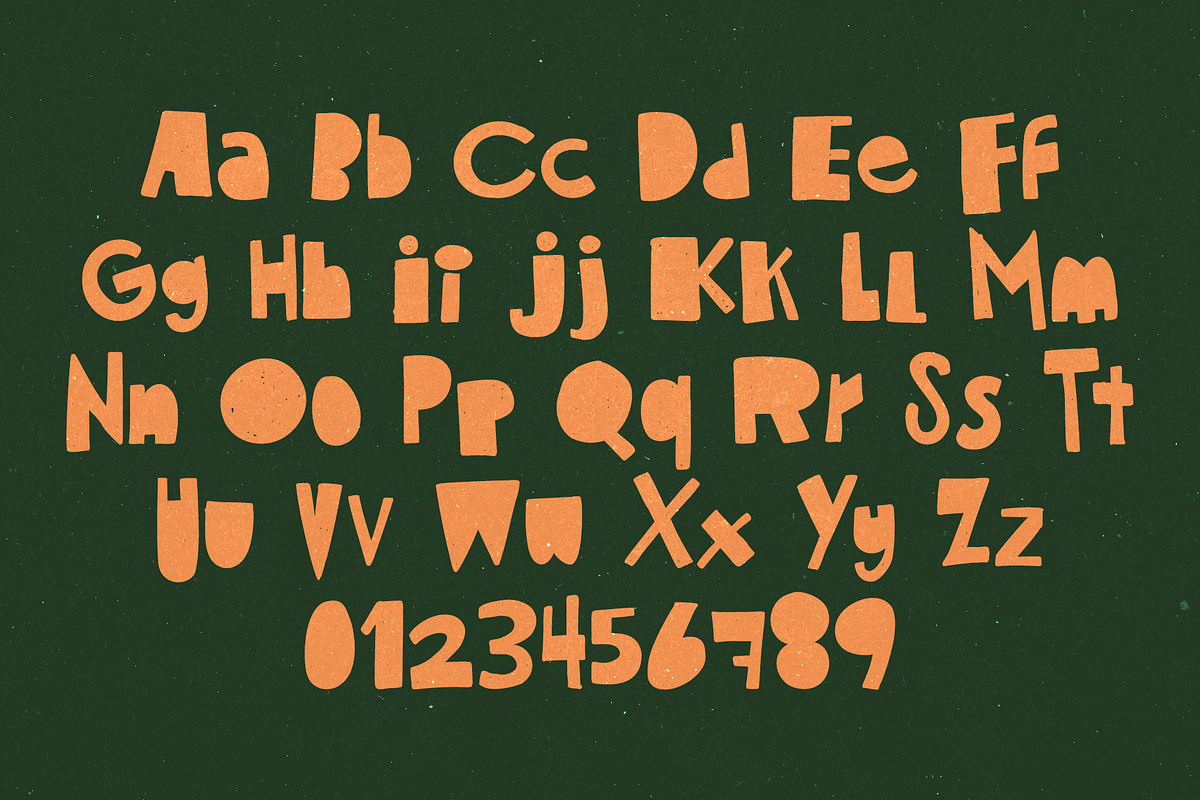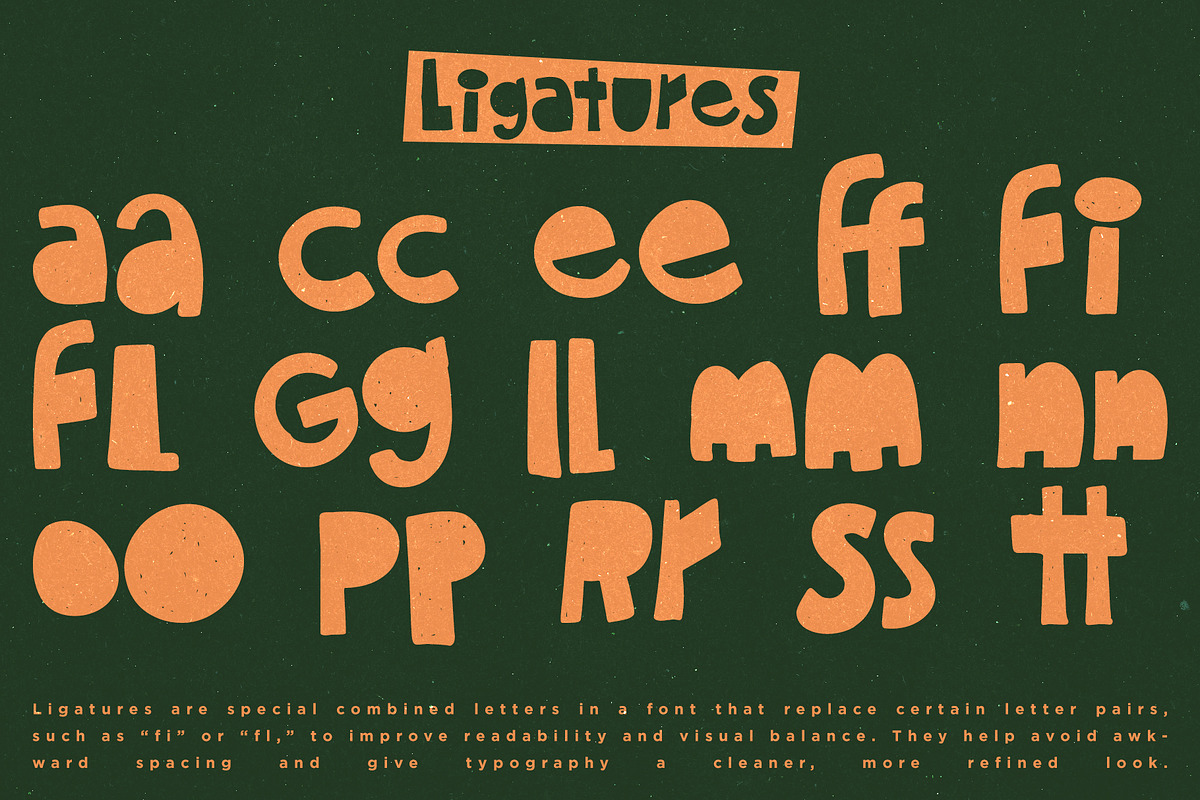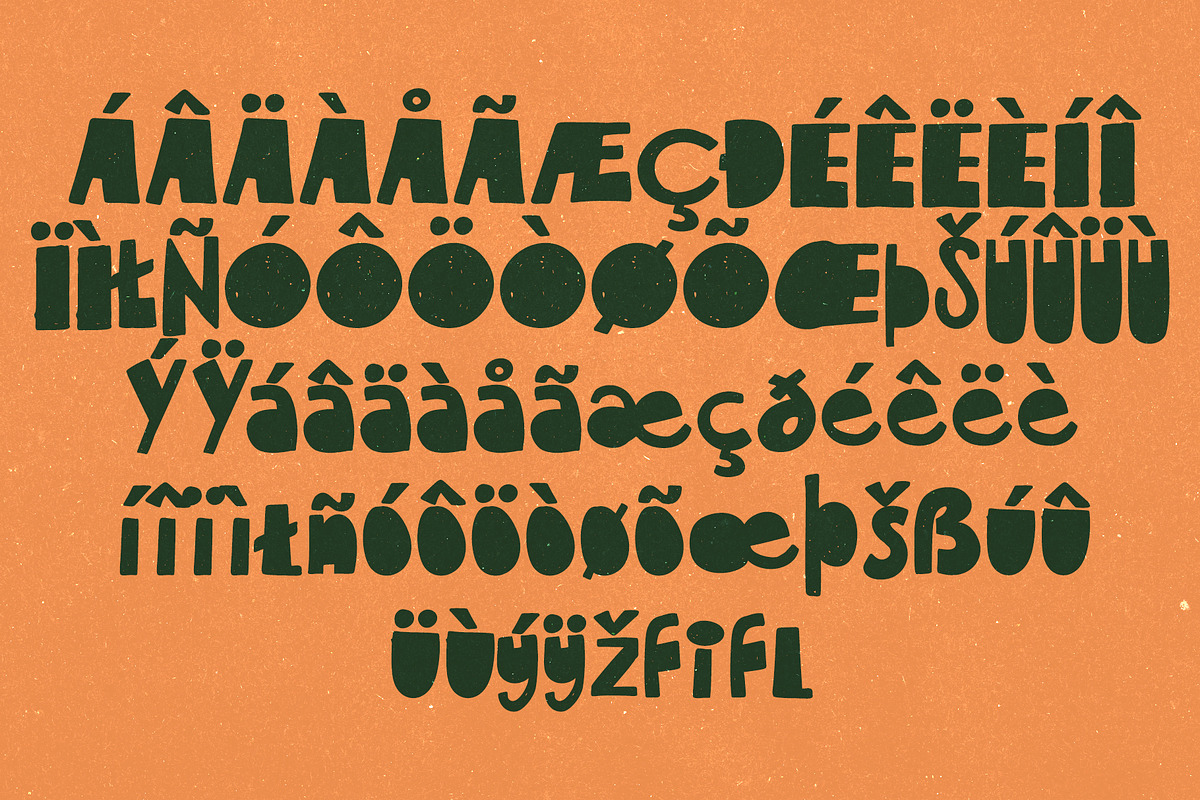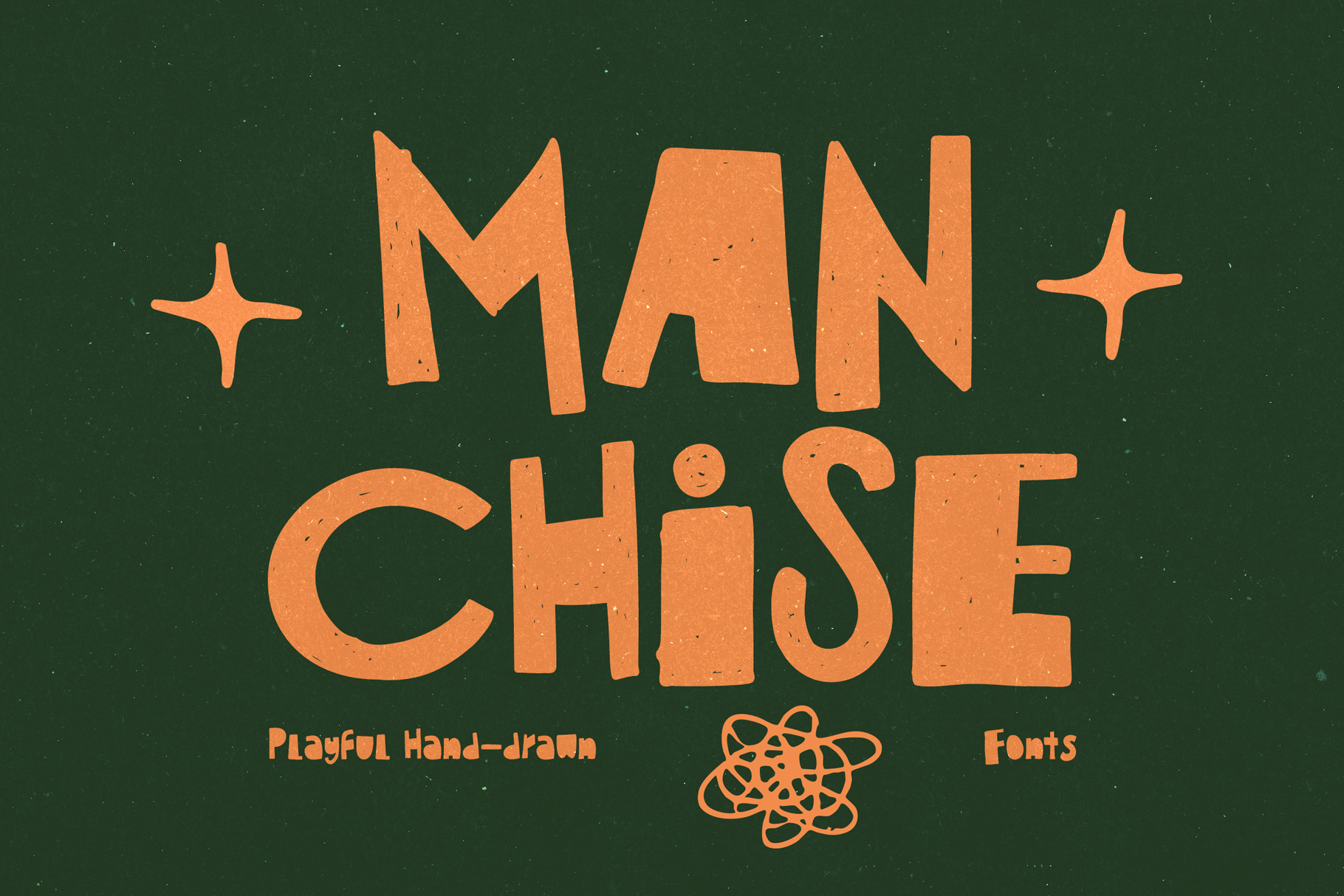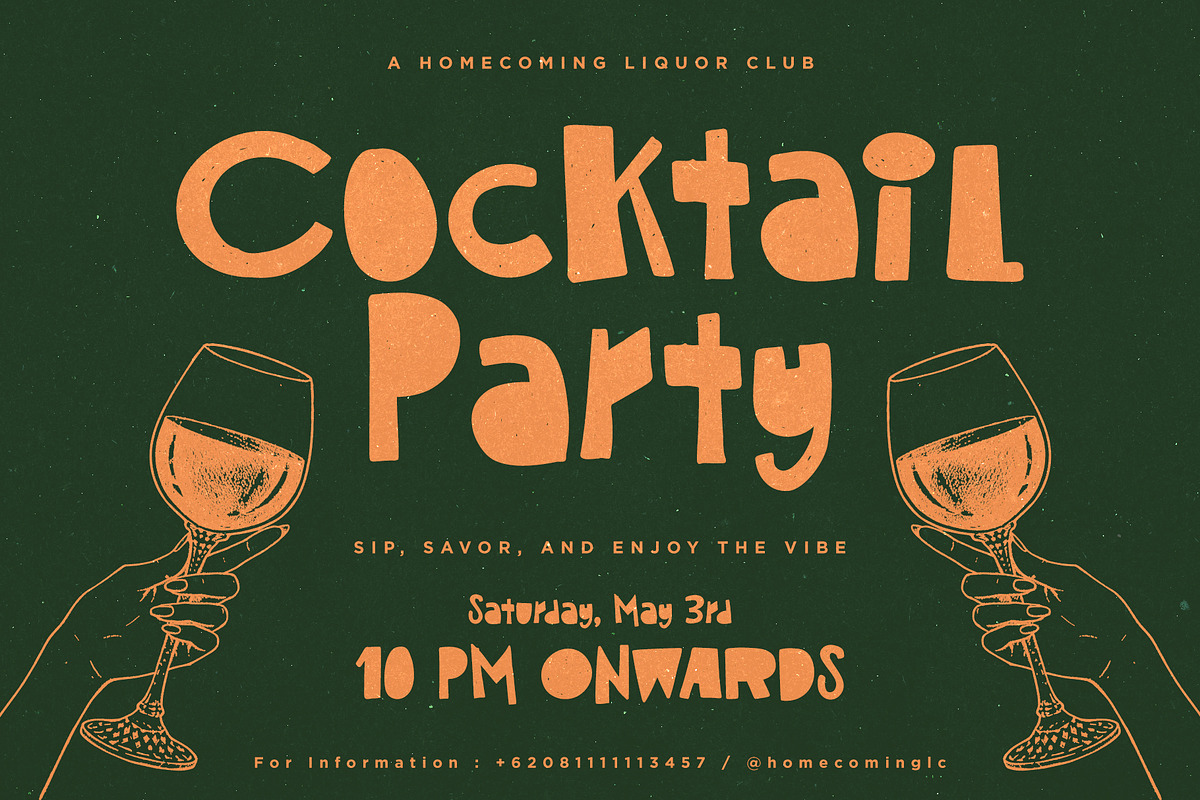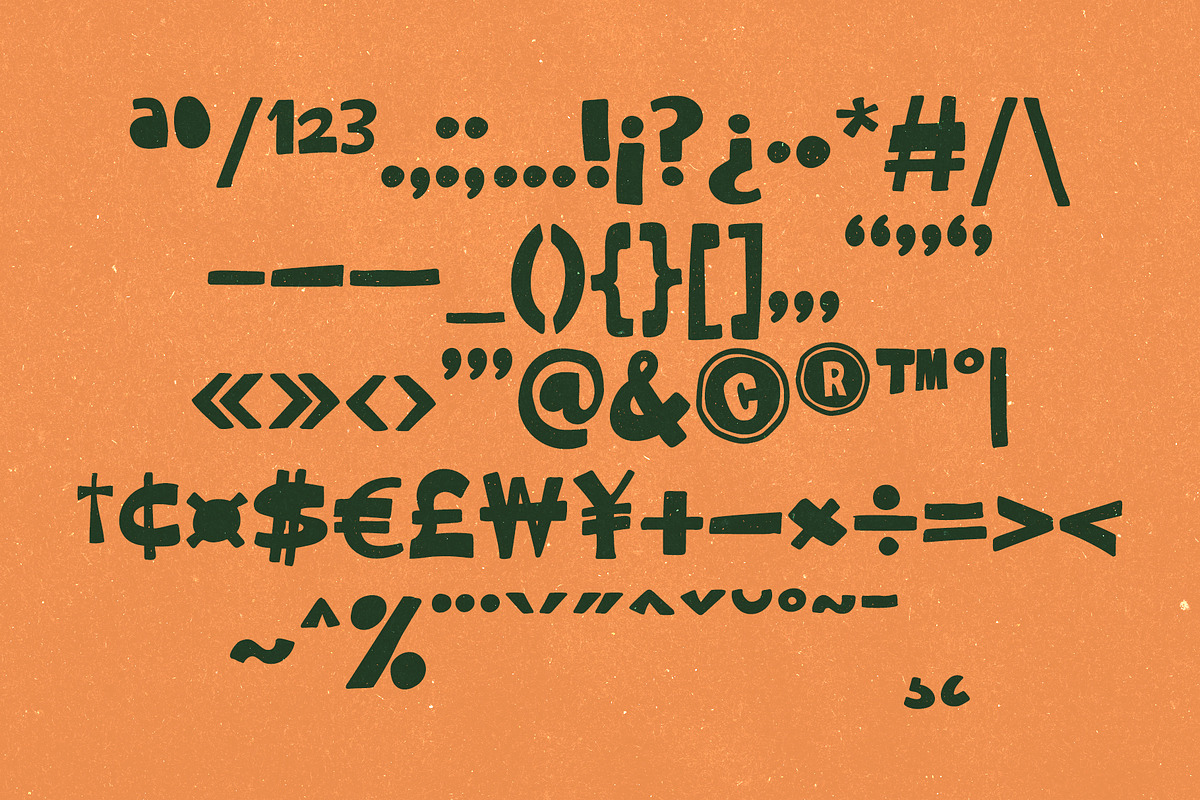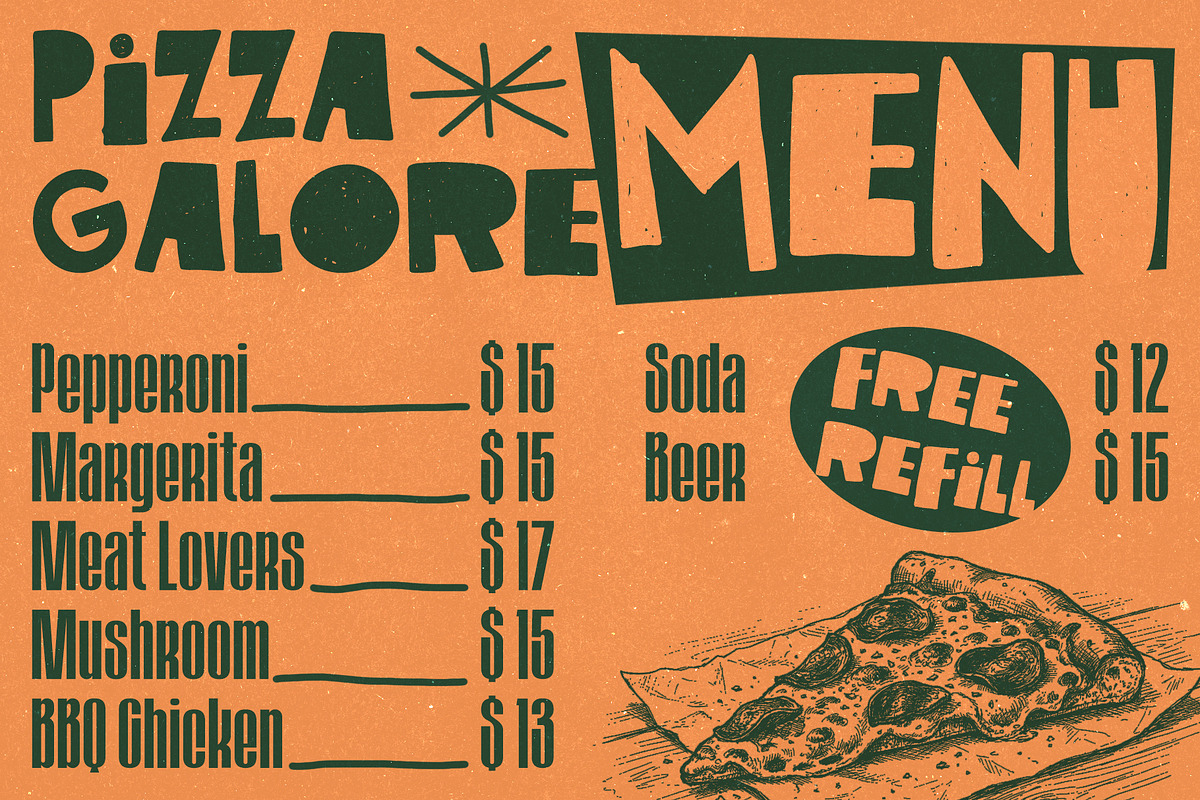
Manchise - Playful Bouncy Fonts
Stop settling for "safe" typography and give your brand a voice that actually pops. Manchise is a quirky, bouncy, and undeniably charismatic hand-drawn display font designed for creators who aren’t afraid to be bold. With its chunky letterforms and irregular, organic rhythm, Manchise captures that elusive "hand-crafted" vibe that instantly builds trust and personality.
Whether you’re designing for a trendy taco joint, a craft brewery, or a vibrant organic juice brand, Manchise delivers a friendly, approachable energy that makes customers feel right at home.
Why Your Design Kit Needs Manchise: Irresistible Personality: Every character is infused with a playful, "bouncy" baseline that keeps the eye moving and the vibe high.
Authentic Texture: Carefully crafted to retain that raw, hand-lettered feel—perfect for retro or modern-organic aesthetics.
Maximum Versatility: While it's a superstar for Food & Beverage branding, it’s equally at home on apparel, book covers, social media quotes, and packaging.
Designed for Impact: High-contrast weights and unique shapes ensure your headlines remain legible while dripping with style.
F&B Branding: Menus, food trucks, and cafe logos.
Packaging: Bold juice labels, snack bags, and coffee pouches.
Merchandise: T-shirt designs and tote bags with a casual, cool edge.
Social Media: Eye-catching YouTube thumbnails and Instagram headers.
Logo Design: For brands that want to look human, not corporate.
Pro Tip: Pair Manchise with a clean sans-serif for a professional yet whimsical look that stands out in a crowded market.